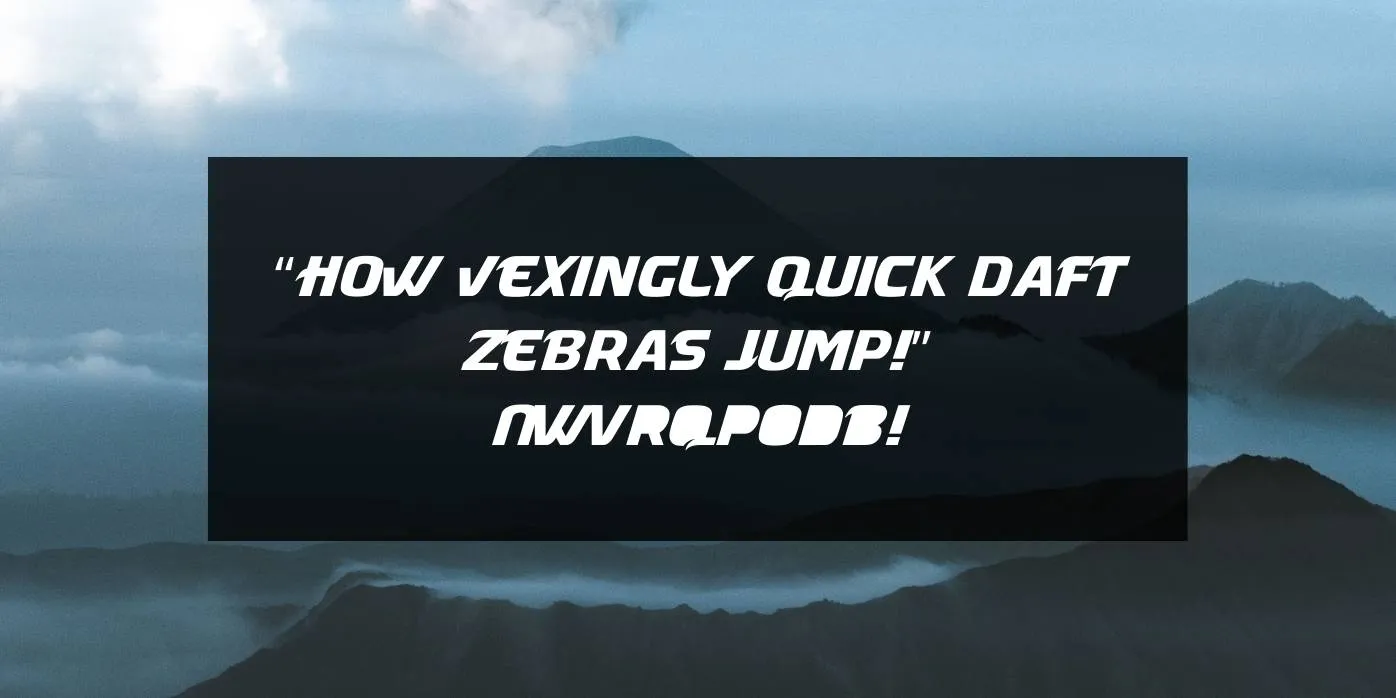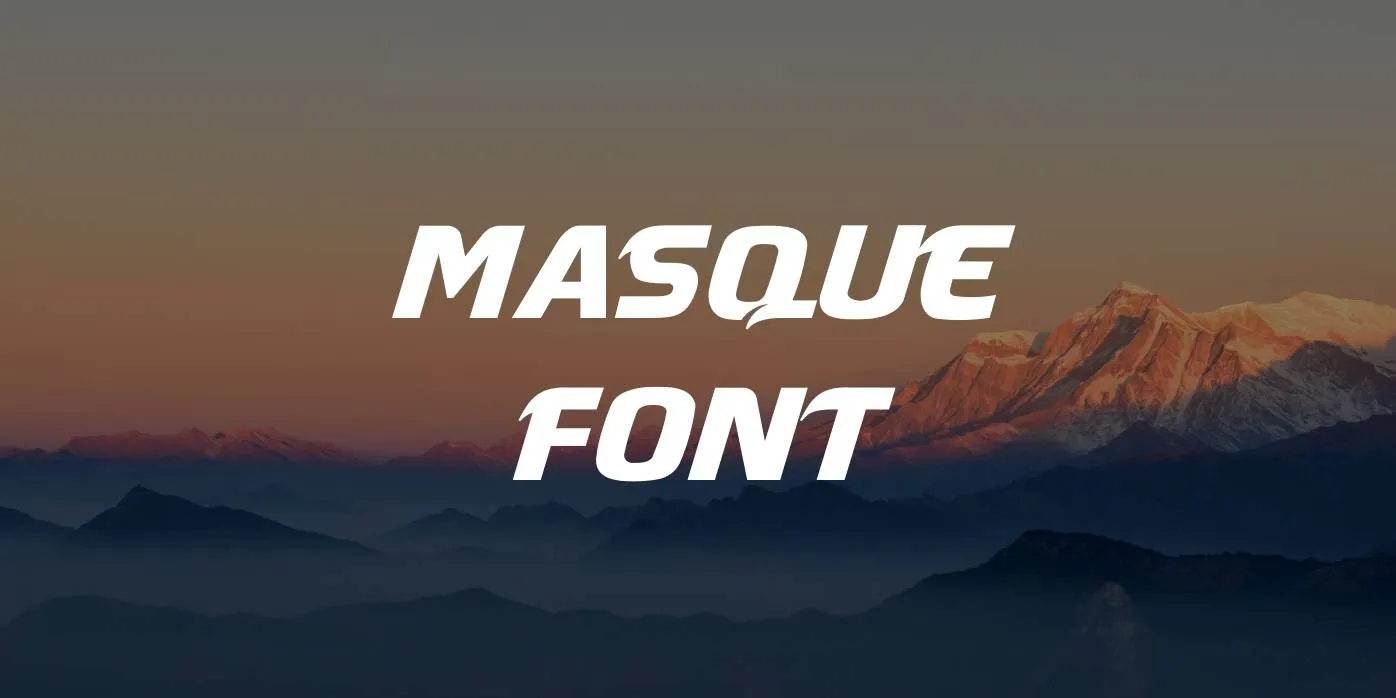
Masque Font
Here, we are going to present a modern typeface named Masque Font. This standard typeface was developed by Apostrophic Labs. This family belongs to the fancy family.  In this family, there are a total of 12 different fonts. Masque Font is suitable for many different purposes.
You can use it for both headlines and body text. It is very legible and has great readability. This font also supports multiple languages. This typeface is used for CSS and HTML languages.
This humanist fancy typeface comes in 6 different styles. These styles are regular, italic, bold, bold italic, black, and black italic. Each style has its own unique look and feel. It also consists of a wide range of characters.